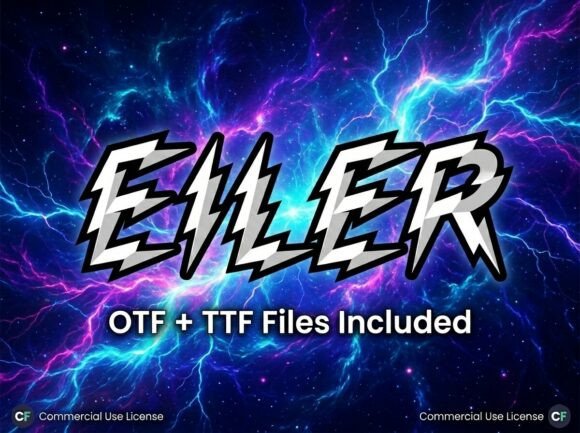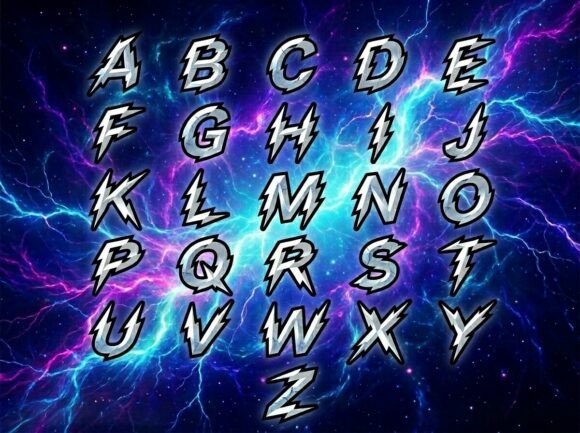
Eiler Font: A Stunning Decorative Display Font for Creators
Are you tired of using the same old fonts for your designs? Look no further than the Eiler Font, a unique and artistic display font that’s sure to turn heads. With its strong visual personality and decorative elements, this font is perfect for creators who want to add a touch of elegance and sophistication to their work.
A Font that’s Truly One-of-a-Kind
The Eiler Font is a stunning decorative display font designed to be the center of attention. Its unique artistic elements and strong visual personality make it perfect for bold headlines, artistic logos, and creative packaging. Whether you’re a designer, craftsperson, or DIY enthusiast, this font is sure to inspire your creativity and help you stand out from the crowd.
Versatile and Professional
One of the best things about the Eiler Font is its versatility. It’s perfect for a wide range of design projects, from bold headlines and artistic logos to creative packaging and more. And despite its decorative nature, this font maintains a professional and polished finish that’s sure to impress. Whether you’re working on a business project or a personal passion project, the Eiler Font is a great choice.
This means that the Eiler Font is perfect for designs where you want to make a big impact, but it’s not the best choice for body text or other applications where you need to use lowercase letters.
Why Choose the Eiler Font?
So why choose the Eiler Font over other decorative display fonts? Here are just a few reasons:
- Unique and artistic design – The Eiler Font features a truly one-of-a-kind design that’s sure to turn heads.
- Versatile and professional – This font is perfect for a wide range of design projects, and its professional finish ensures that it will look great in any context.
The Eiler Font is perfect for designers and crafters who want to add a touch of elegance and sophistication to their work. Whether you’re working on a business project or a personal passion project, this font is sure to inspire your creativity and help you stand out from the crowd.
Some examples of projects where the Eiler Font would be a great choice include:
- Logos and branding – The Eiler Font is perfect for creating unique and memorable logos that will help your business or brand stand out.
- Headlines and titles – This font is great for creating bold and eye-catching headlines and titles that will grab attention.
- Packaging and labeling – The Eiler Font is perfect for creating decorative and eye-catching packaging and labels that will help your product stand out.
In conclusion, the Eiler Font is a stunning decorative display font that’s perfect for creators who want to add a touch of elegance and sophistication to their work. With its unique artistic elements, strong visual personality, and versatile design, this font is sure to inspire your creativity and help you stand out from the crowd. So why wait? Purchase the Eiler Font today and start creating stunning designs that will leave a lasting impression!